Useful and Free Pictogram Dingbat Fonts
Pictograms are essentially a graphical idea, sign or simple instruction that has been stripped down to its bare and basic details, yet is still recognizable as the original idea. There versatility and simplicity offers an universally easy to understand language that can be seen in anything from road signs and posters, to icons and logos, and can be found everywhere from the North to the South Pole. Yep, Pictograms are awesome.
Previously, we published a pictogram article that focused on free icon resources (8 Free Pictogram Icon Libraries and Collections) this time around we focus on fonts, or to be more specific, on pictogram dingbats.
Glyphyx (OTF)
Notice (OTF)
Symbolix (TTF)
SirucaPictograms (TTF)
Ding Dongs (TTF)
Symbol Signs (OTF)
Santiage Icono (TTF)
Pictogramz (TTF)
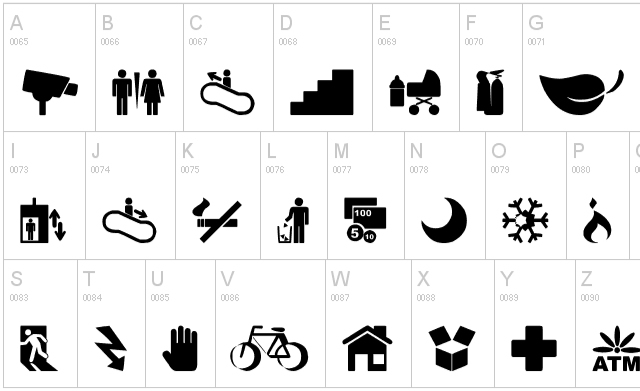
Dingbests (TTF)
Hazard (TTF)
Travelcons (TTF)